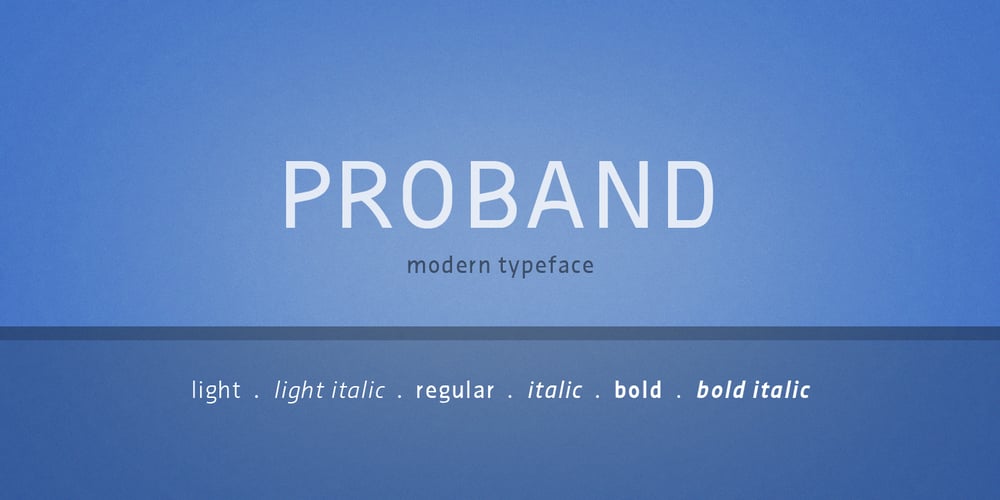
Proband Font Family was designed by Stefan Hoppe and published by SH Grafikdesign. Proband contains 6 styles and family package options. The goal was to create a typeface that looks reputable and still original. Notably, some uppercase characters indicate this font its unique character. It is ideally suited for both body text and headings, or modern logos.